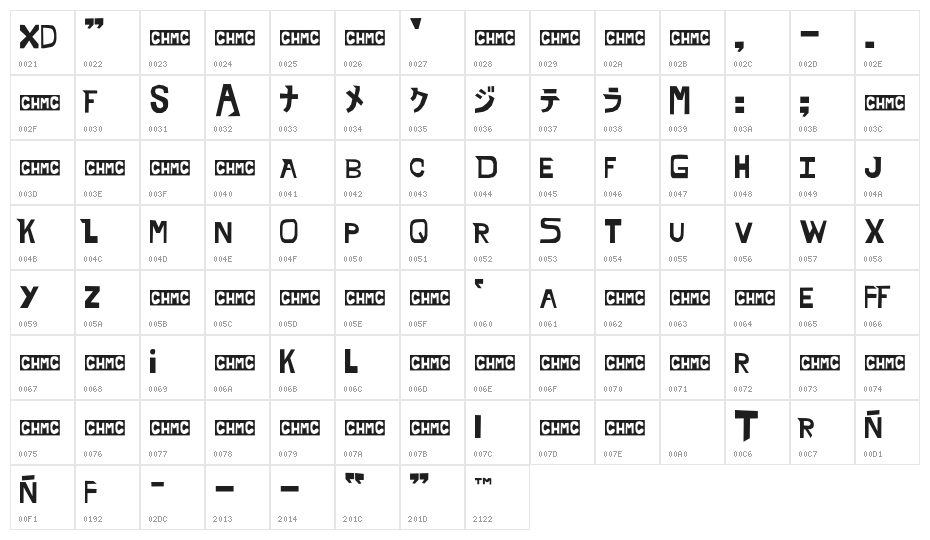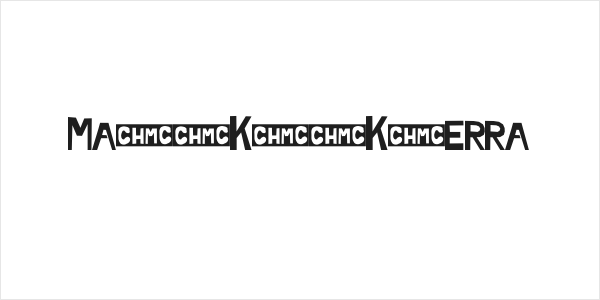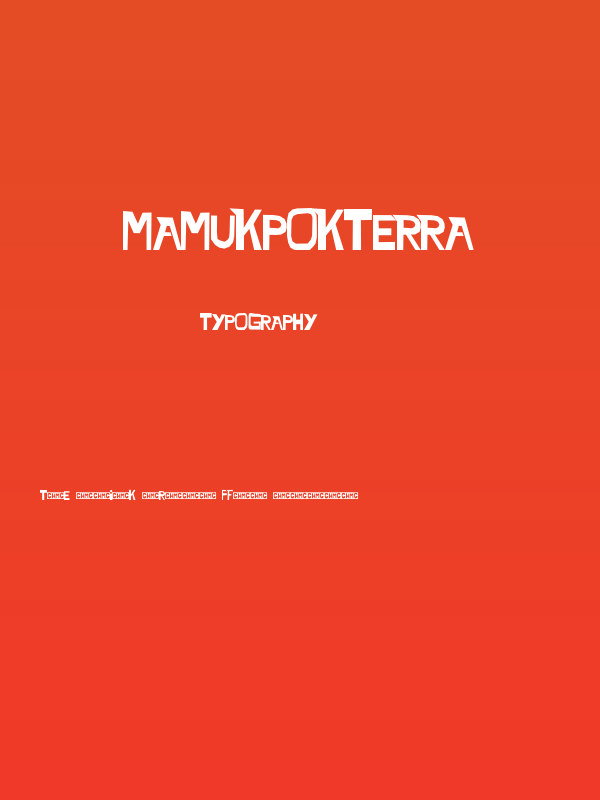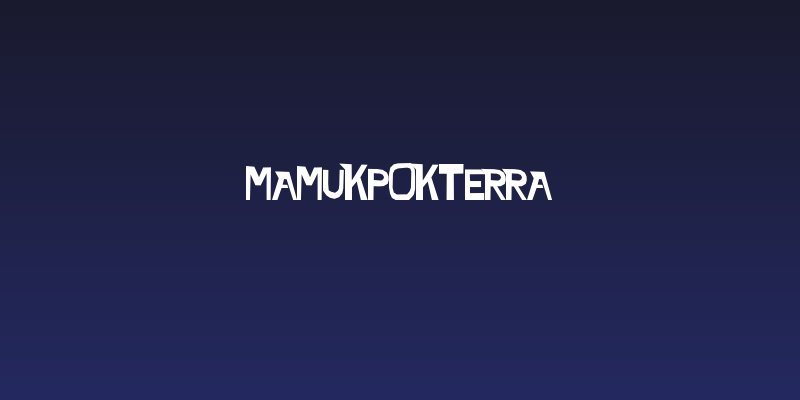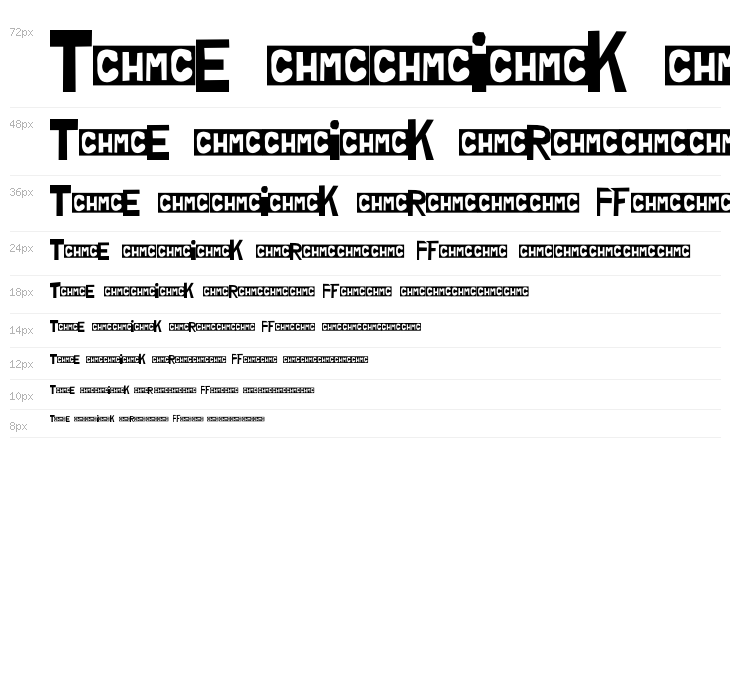
Mamukpokterra Font
Mamukpokterra Description
This font features a bold and geometric style with a strong presence. The characters are designed with sharp angles and a uniform thickness, giving it a modern and edgy look. The uppercase letters are particularly striking, with a consistent height and width that create a cohesive appearance. The lowercase letters maintain the same angular style, ensuring readability while adding a unique flair. The numbers and special characters are crafted to match the overall aesthetic, making this font versatile for various design needs. Its distinct style makes it suitable for projects that require a bold statement.
| Proposed Projects | Ideal for branding, posters, and headlines that require a strong visual impact. |